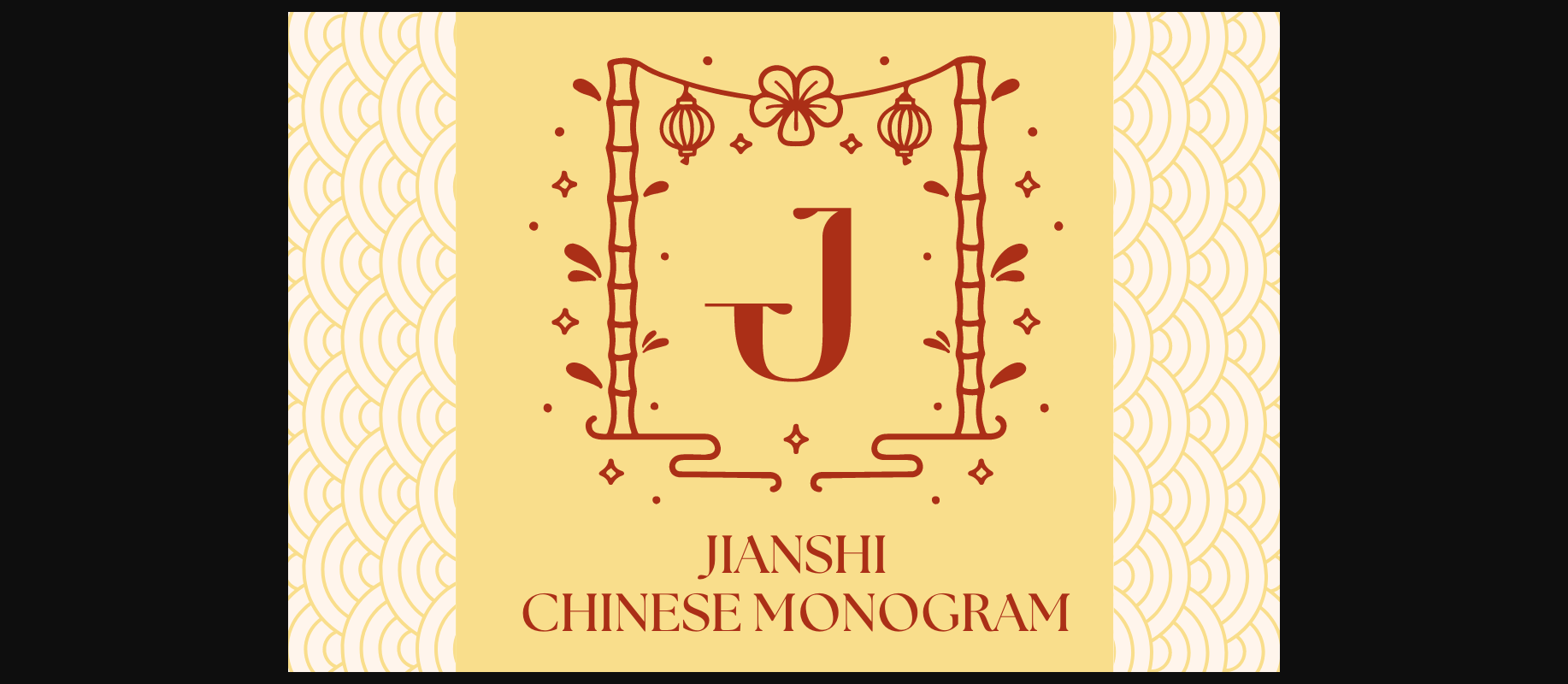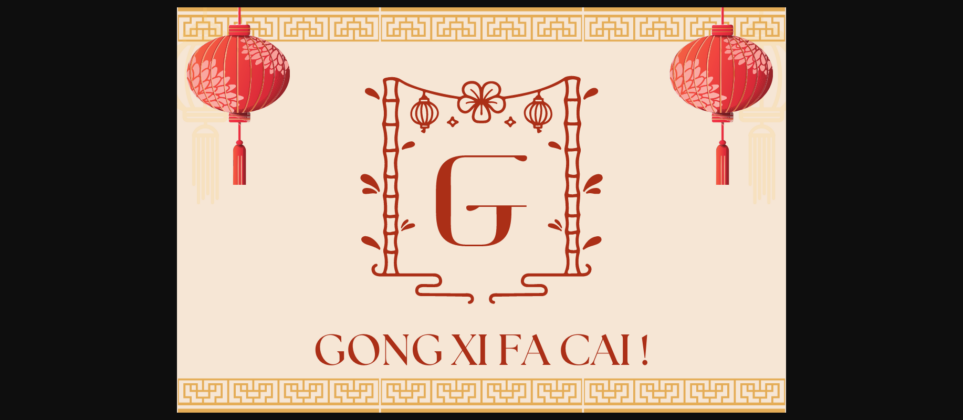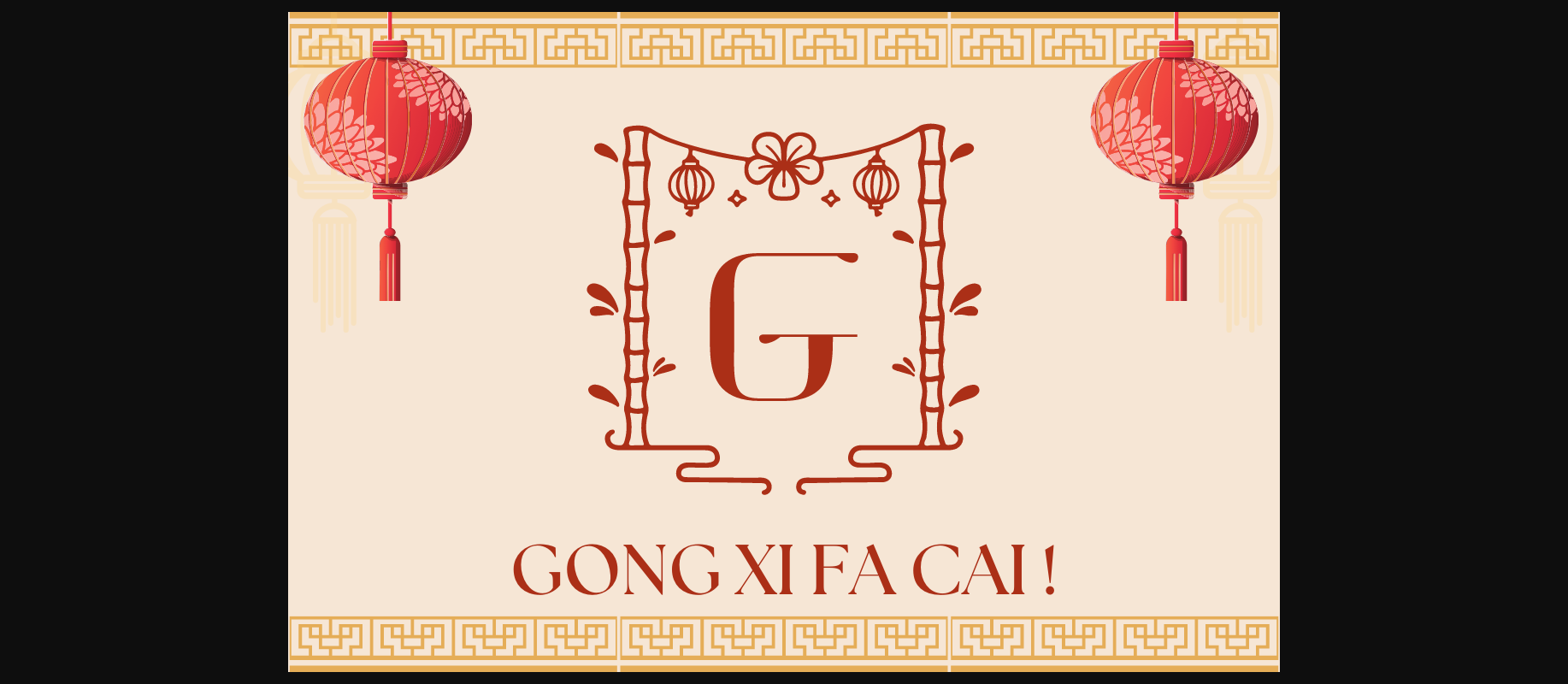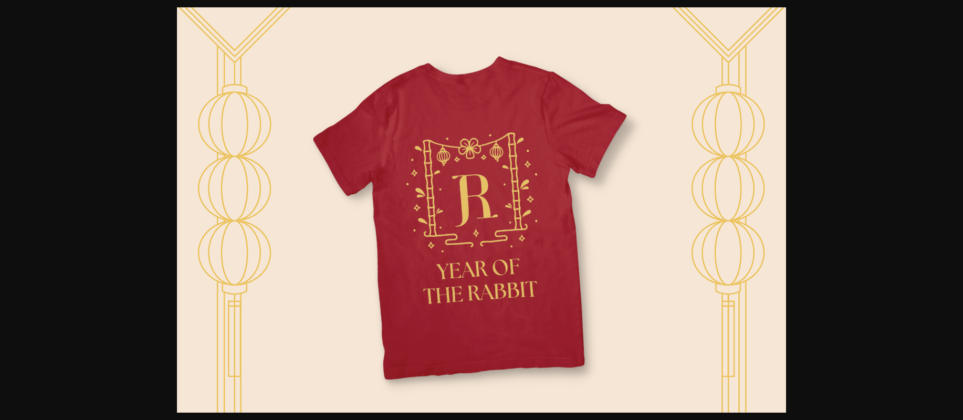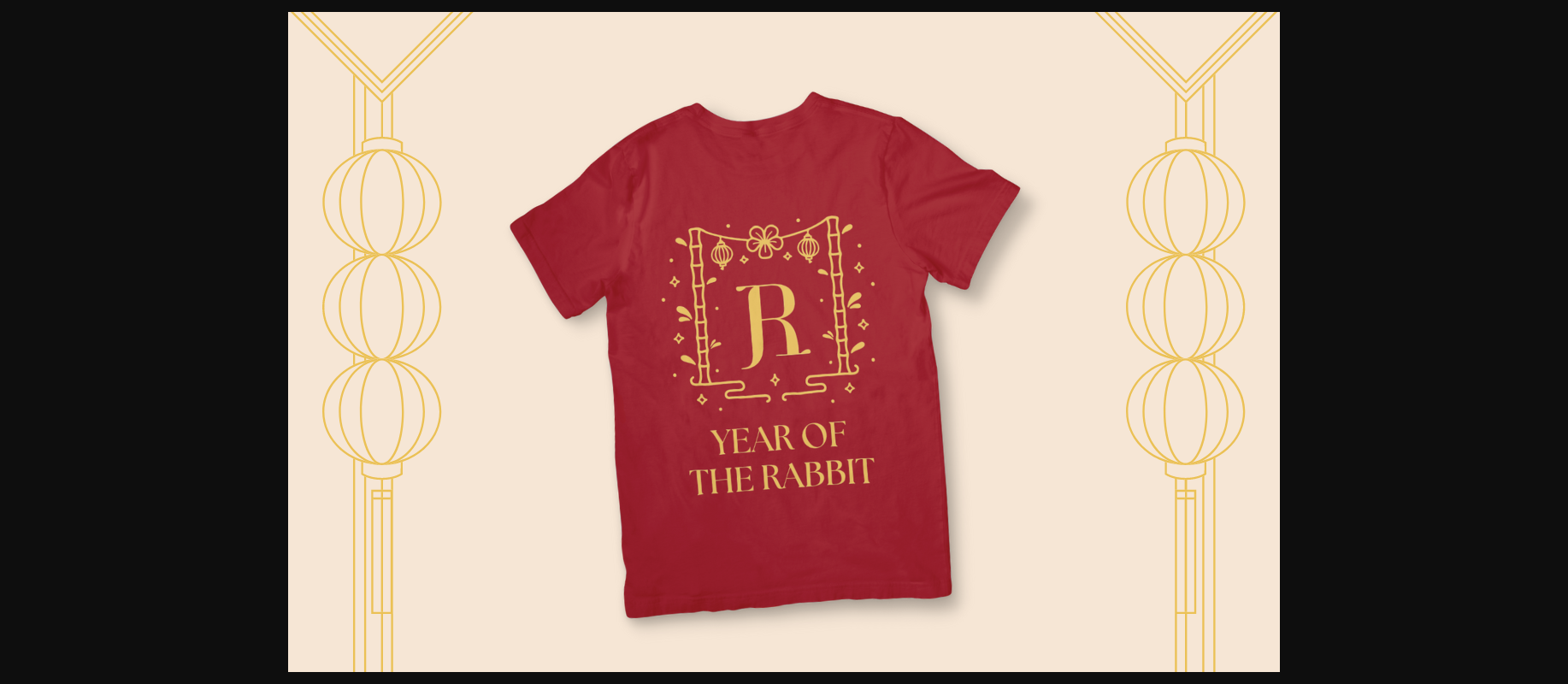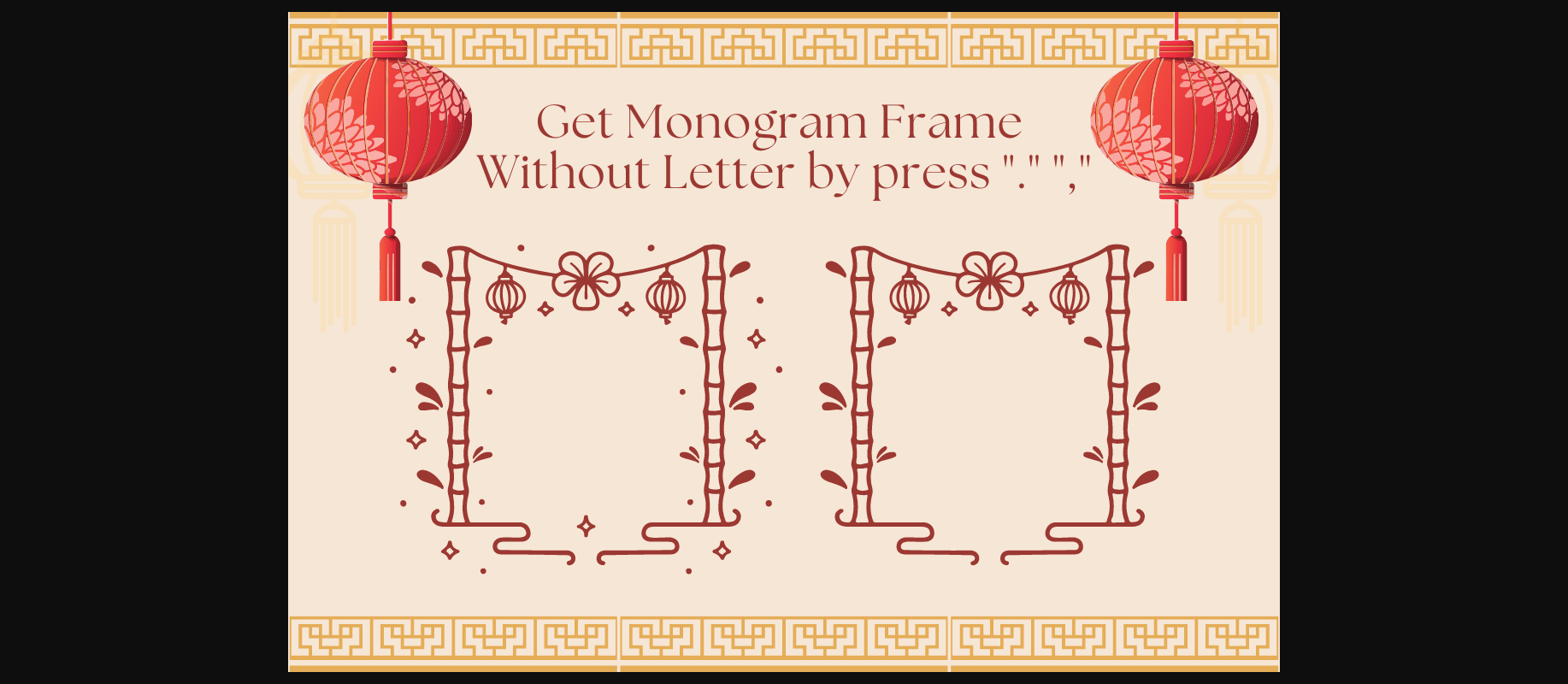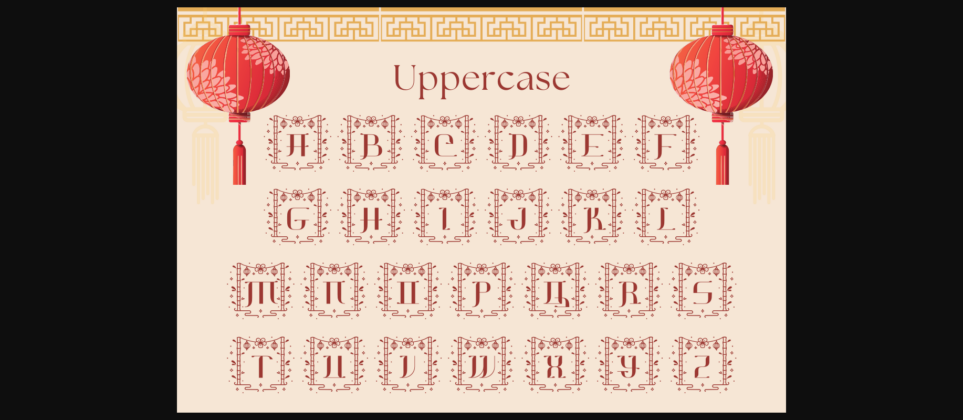
About Jianshi Chinese Monogram Font
Jianshi Chinese Monogram is a Chinese display monogram inspired by chinese new year in bamboo forest.
This font can be used to make chinese new year themed gifts, including textiles, gifts for kids and perfect gift for a new homeowner, chinese family or anyone with a love of monograms.
Comes in with 2 styles.
Just simply change between uppercase and lowercase to see the different styles!
Include frame design without letter, just click “.” or “,”
change the letter with your style.
– Uppercase (A-Z)
– Lowercase (a-z)
– Number (0-9)